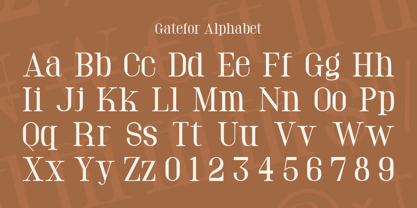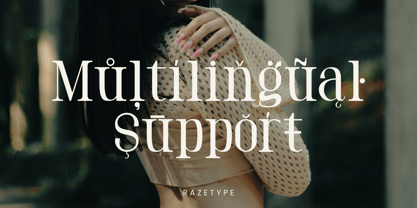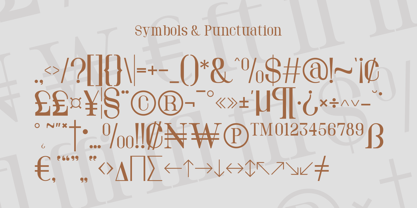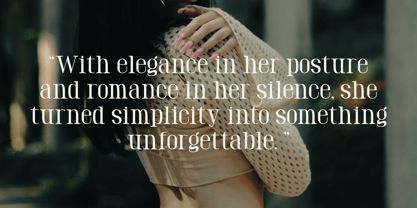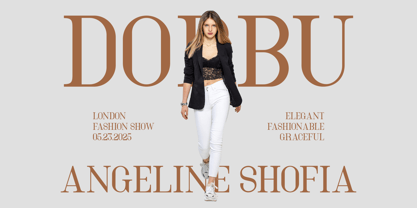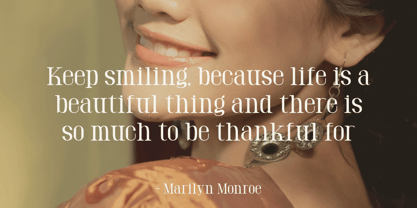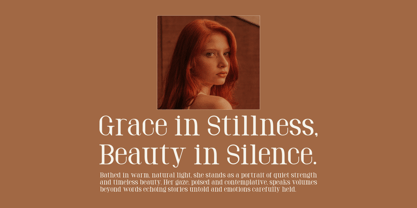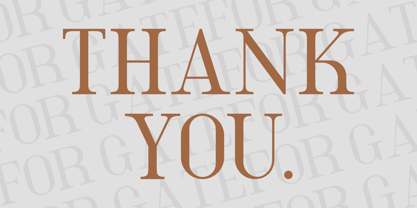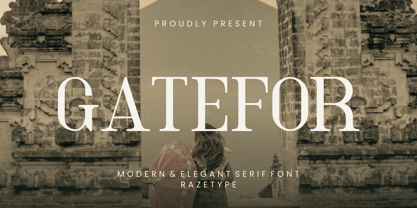
Gatefor
by Razetype
The Gatefor Font Family was designed by Ahmad Faizal and published by Razetype. Gatefor contains 1 styles. More about this family
Gatefor is a refined serif typeface that seamlessly blends modern sophistication with timeless elegance. Characterized by its sharp, high-contrast letterforms and distinctively flared serifs, Gatefor offers a bold visual presence while maintaining excellent readability. The font exhibits classic proportions with a contemporary twist, making it suitable for both digital and print applications. Gatefor includes a full set of uppercase and lowercase letters, numerals, and essential punctuation, making it versatile for use in fashion, lifestyle, magazine layouts, and high-end promotional materials. It reflects a visual identity that is both fashionable and graceful, making it a fitting choice for brands seeking a distinguished and polished typographic voice.